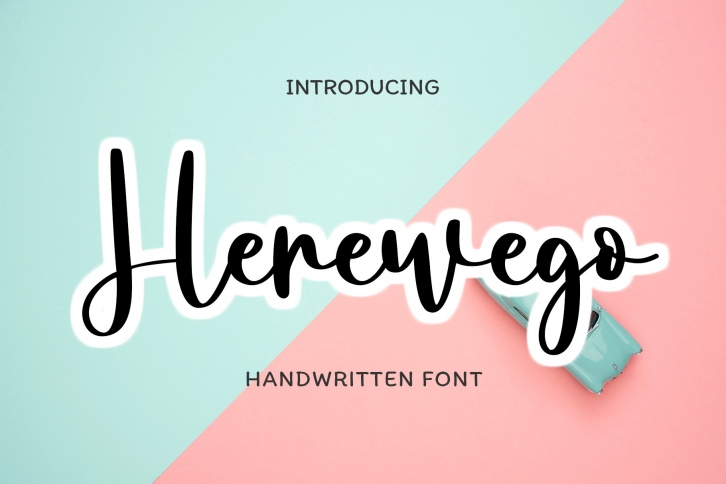
Herewego is a trendy and unique font with an authentic style. It was designed by BearyType and it's a great choice for creative people who need such a font. It was released on July 13, 2022 and the file size is 4.43 MB. Herewego will add an organic vibe to any design idea!